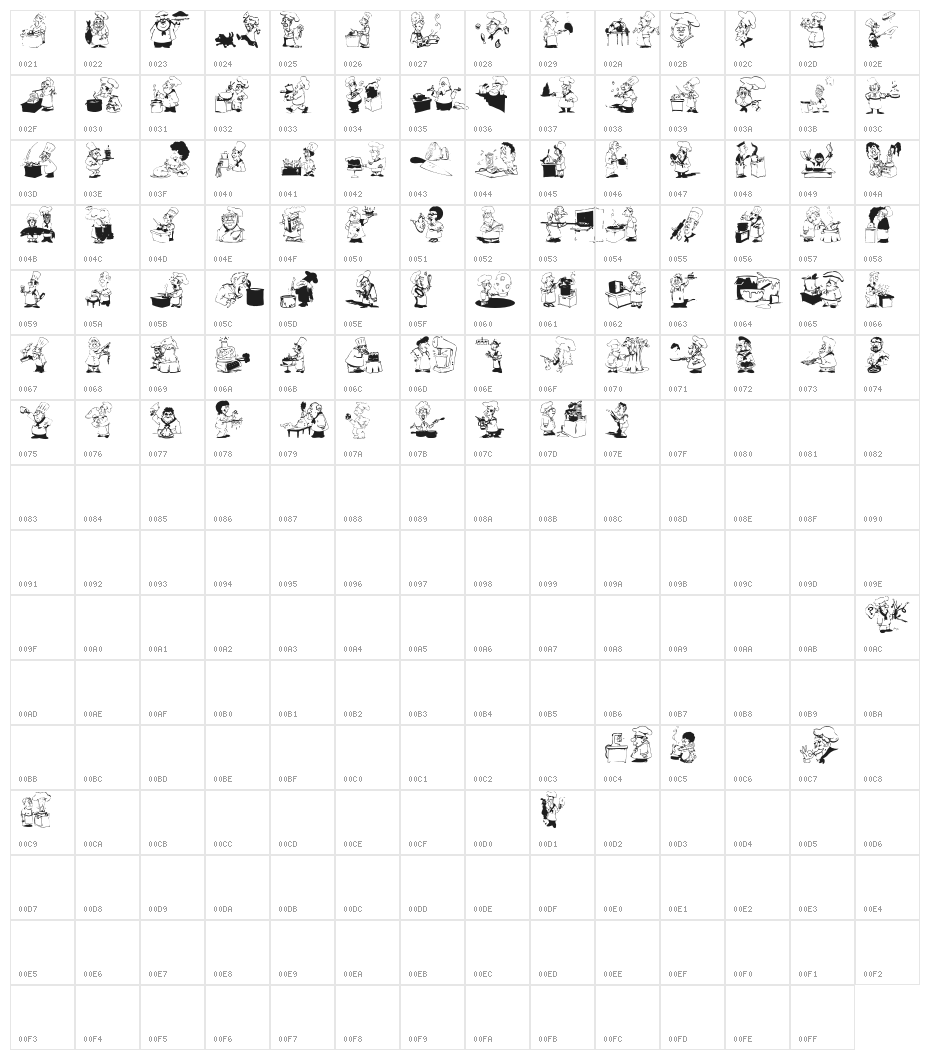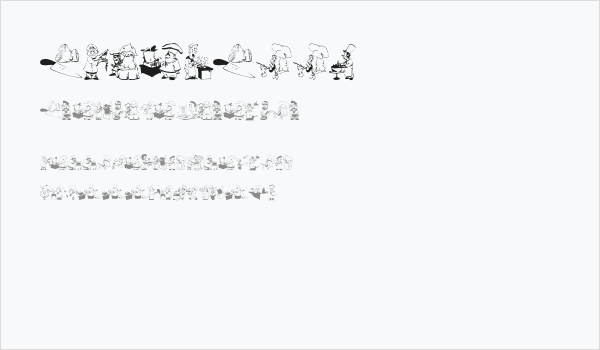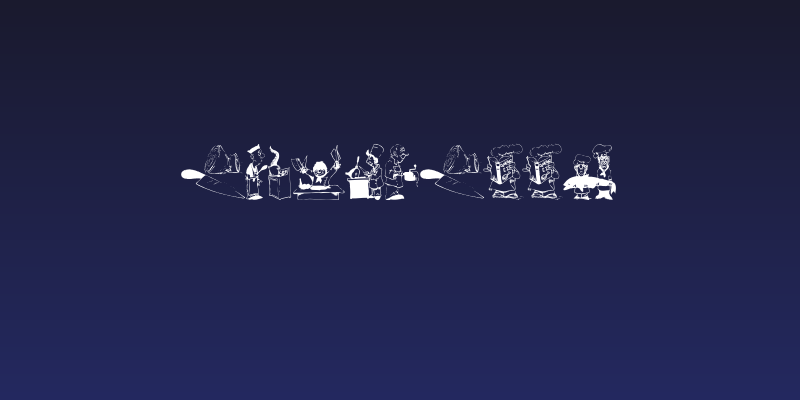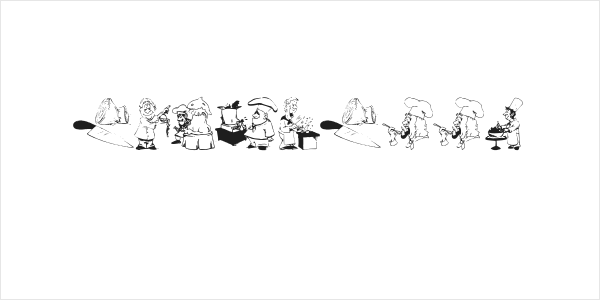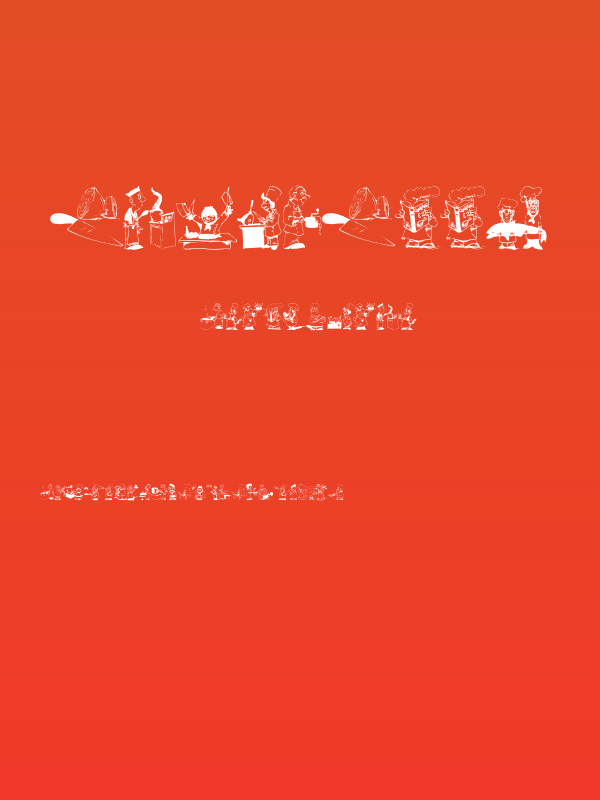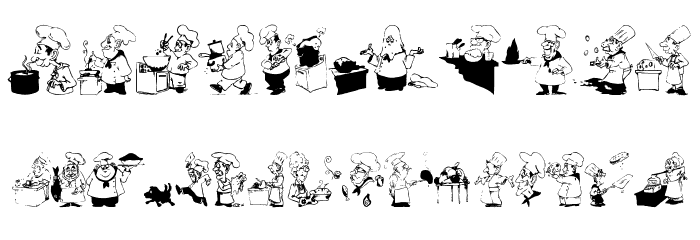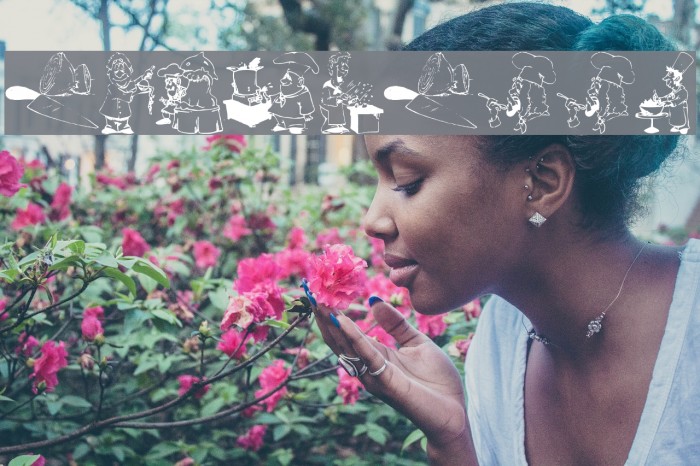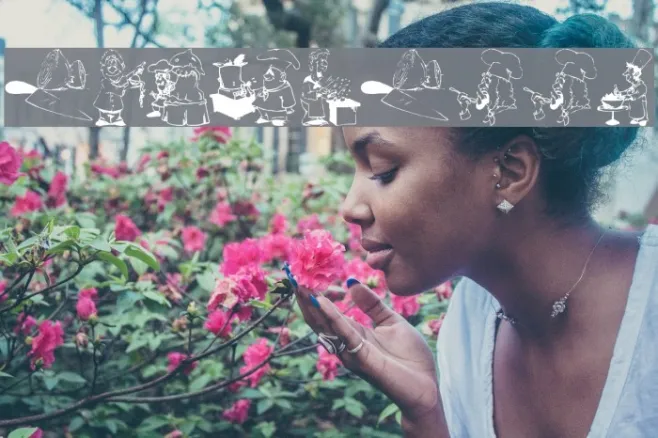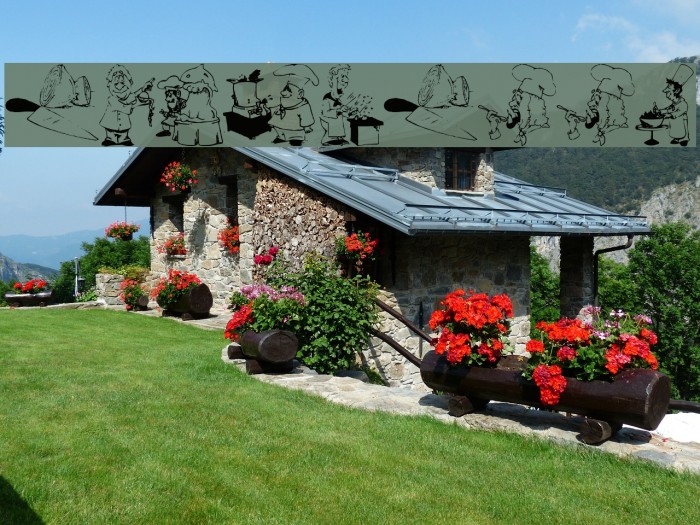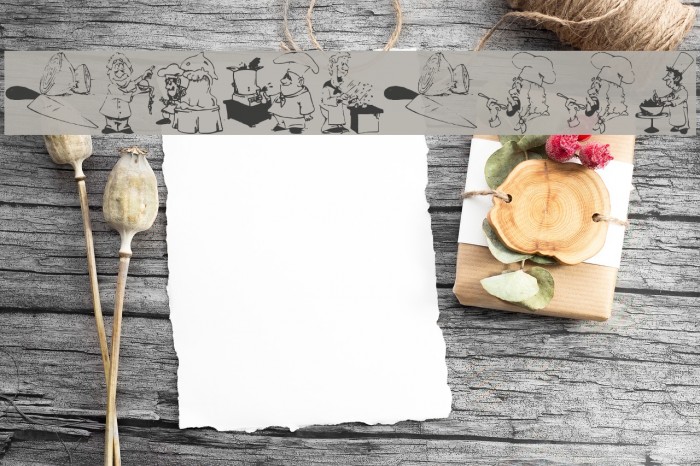
ChiefCook Font
ChiefCook Description
A whimsical, hand-drawn decorative font featuring playful cartoon chefs in various cooking poses, with each character represented by a unique chef illustration. The style is informal and lively, with exaggerated expressions and dynamic postures, giving a humorous and lighthearted feel.
| Overall Style | Decorative, Whimsical, Playful |
| Use Case | Logos, Headlines, Posters, Themed graphics |
| Proposed Projects | Children’s cookbooks, restaurant branding, food event posters, playful invitations, culinary blogs. |